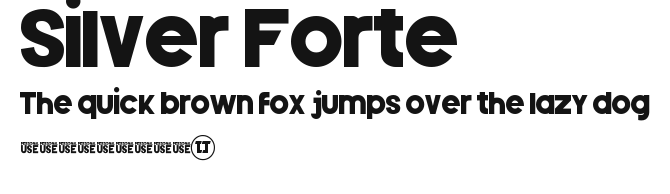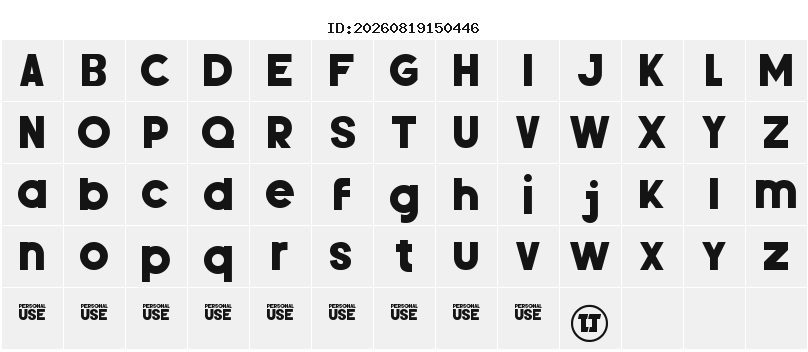
Silver Forte Preview
• Font Name: Silver Forte
• Font ID: Silver Forte:Version 1.00
• Full Font Name: Silver Forte
• Version: Version 1.00 August 6, 2015, initial release
• PostScript Name: SilverForte
• Character Count: 241
• Designer: Luis Jaramillo
• Manufacturer: LJ-Design Studios
About Silver Forte.ttf
Silver Forte.ttf is a modern, elegant sans-serif font designed for ultimate readability and visual harmony. Perfect for branding, headlines, web design, and print materials.